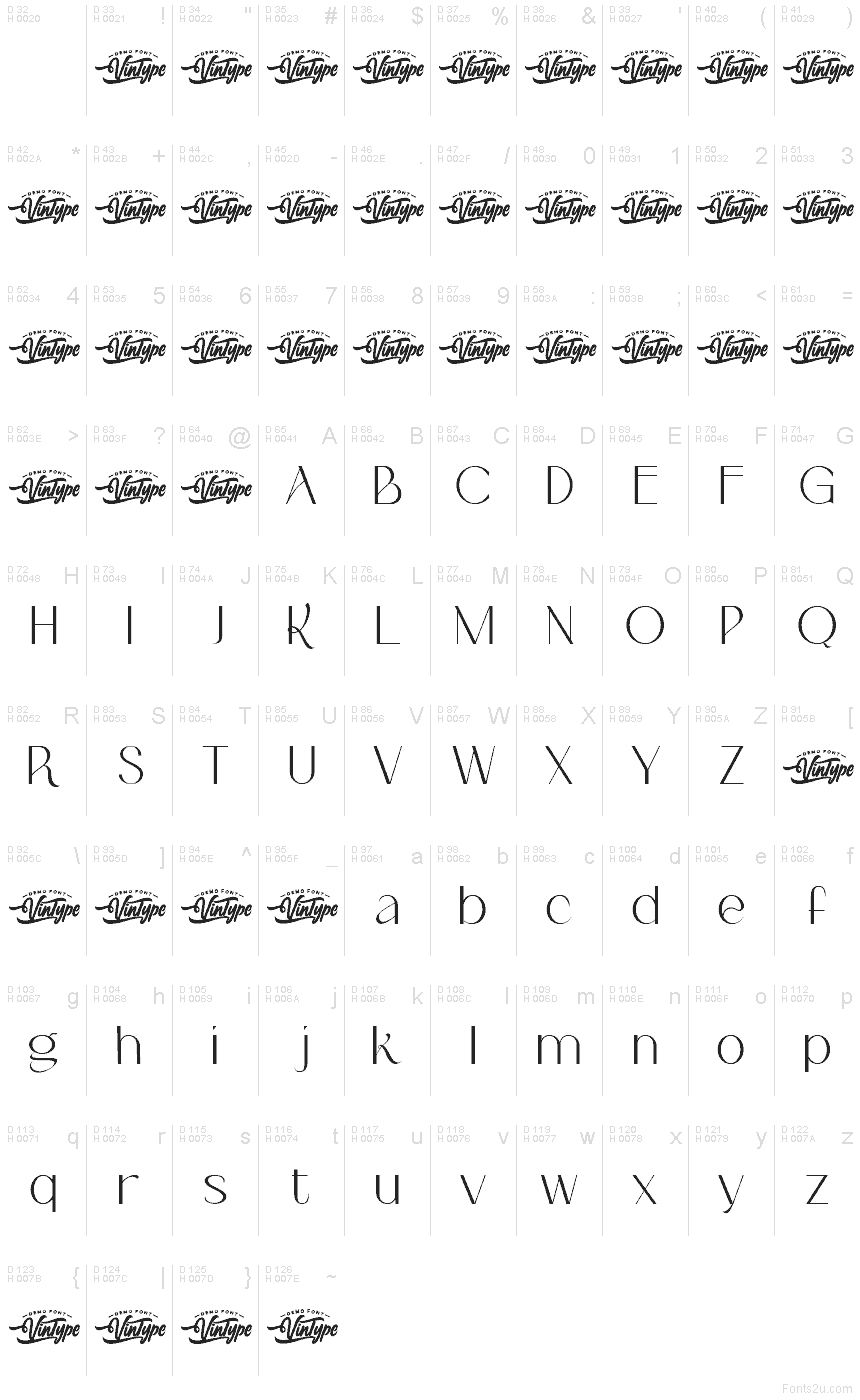
Cheekbone Demo
Cheekbone font by VinType is a free retro display serif font. Built around razor-thin hairlines that swell into velvety curves, it has a sculpted, high-contrast rhythm that feels like light catching a polished cheekbone. The scooped counters and teardrop flicks add a glamorous swing without getting fussy, so headlines come off crisp, not cluttered.
Using Cheekbone, you’ll get instant drama for fashion branding, beauty packaging, magazine covers, boutique logos, poster titles, and luxe event invitations. This free font wants generous sizes and a little breathing room; add a touch of tracking for extra shimmer. Pair with a clean geometric sans to keep body copy grounded while the display sings.